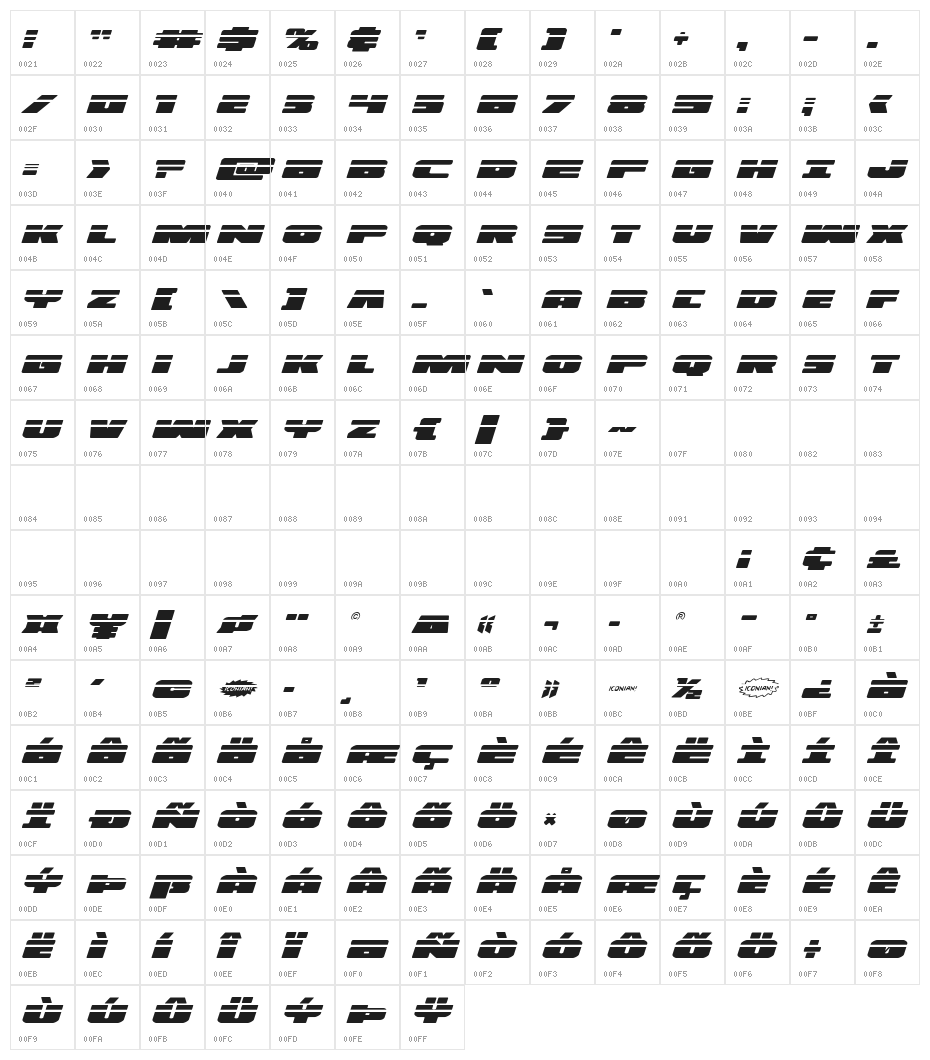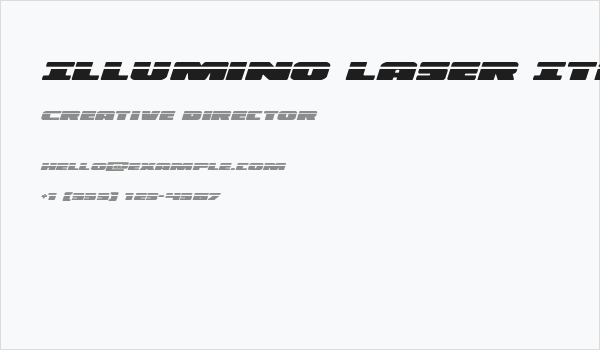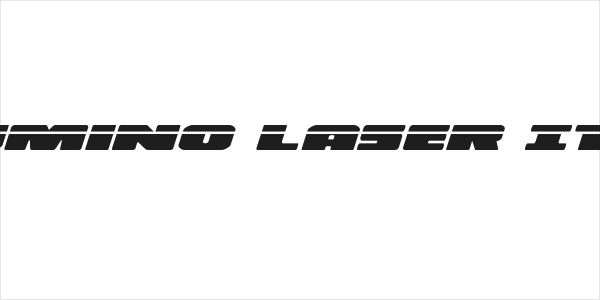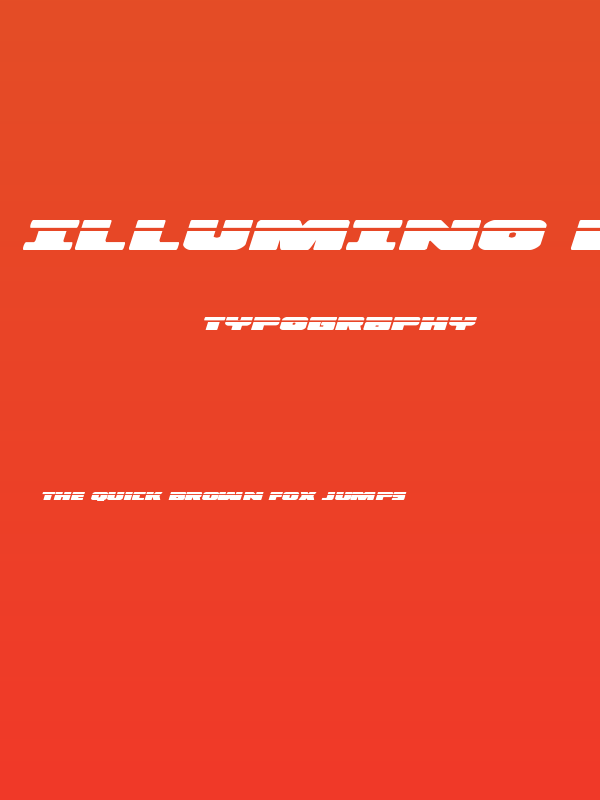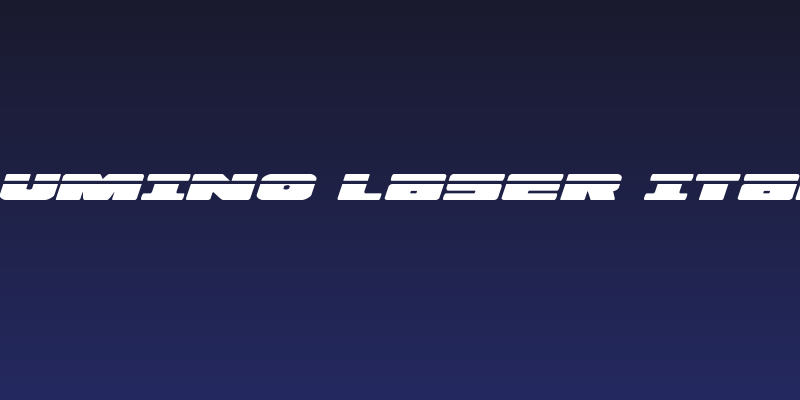
Illumino Laser Italic Font
Illumino Laser Italic Description
This font features a futuristic and bold design with a distinct italic slant, giving it a dynamic and forward-moving appearance. The characters are constructed with sharp, angular edges and a geometric style, creating a sense of speed and modernity. The uppercase and lowercase letters maintain a consistent style, with the uppercase being slightly more pronounced. The numbers and special characters follow the same design principles, ensuring uniformity across all glyphs. The font's bold weight and unique style make it stand out, ideal for projects that require a strong visual impact.
| Proposed Projects | Ideal for sci-fi themed designs, video game titles, technology branding, and futuristic posters. |